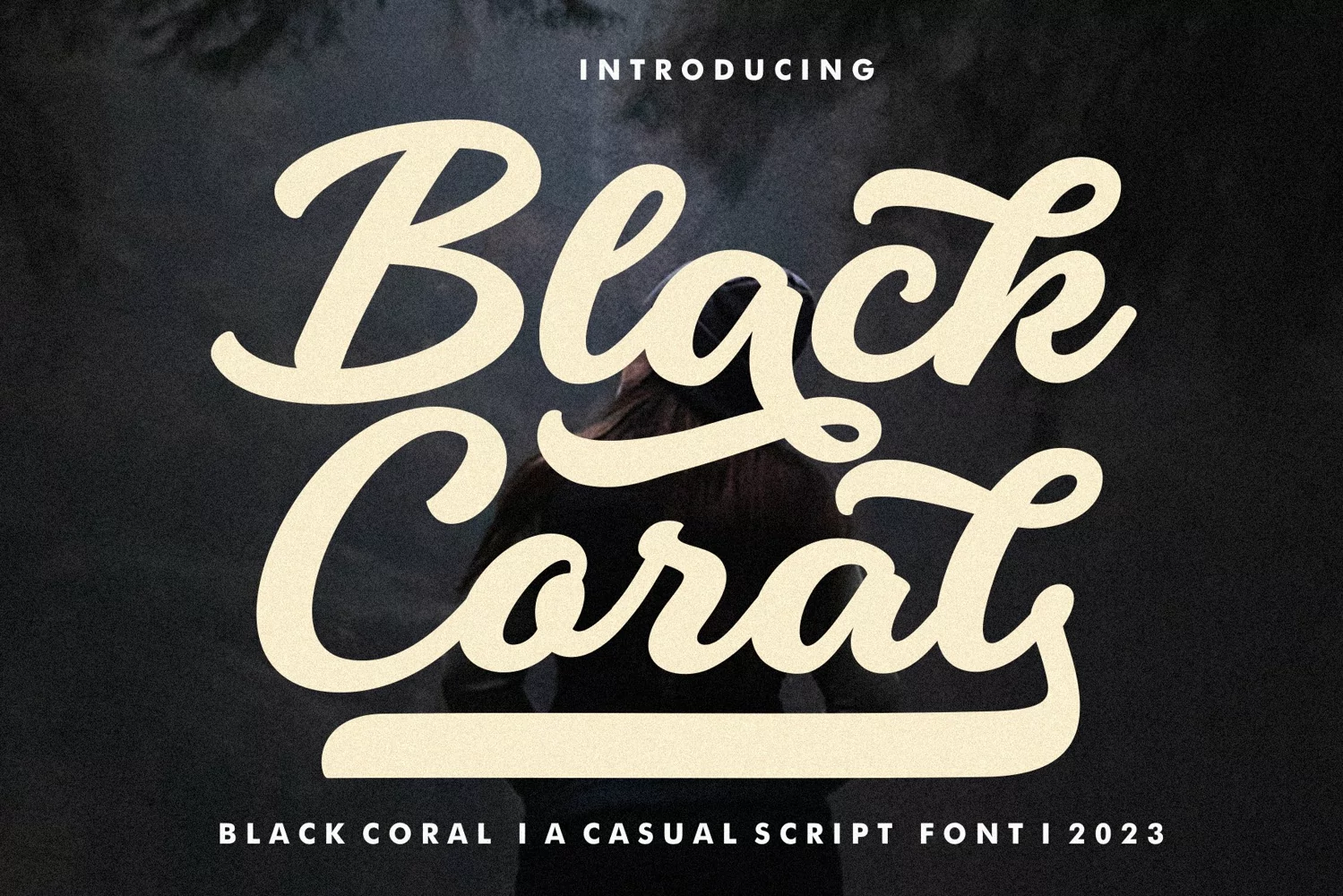
Black Coral is a Casual script font, it has a elegant, classy look and beauty.
Black Coral is great for wedding invitation card designs, advertisements, product designs, stationery, product packaging, quotes, Logo and so on.
Black Coral